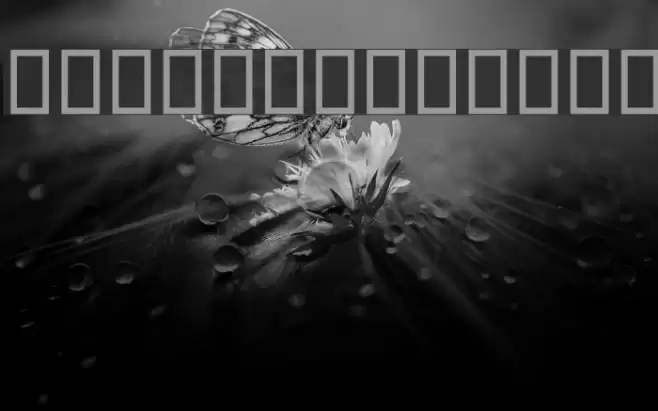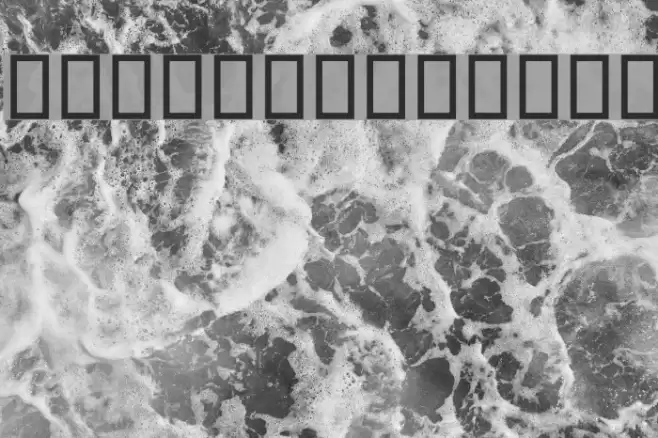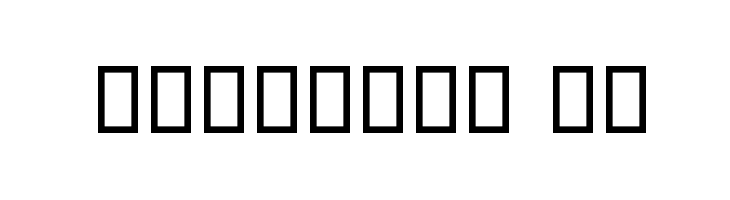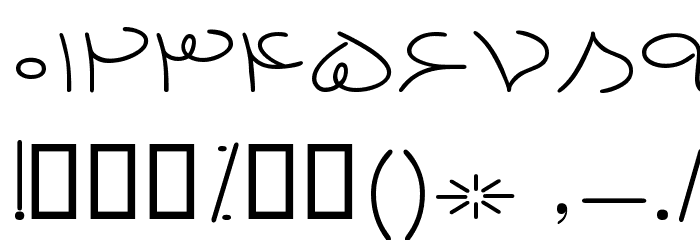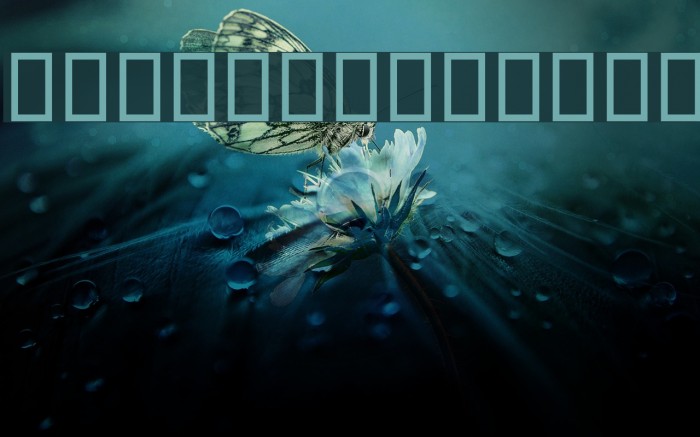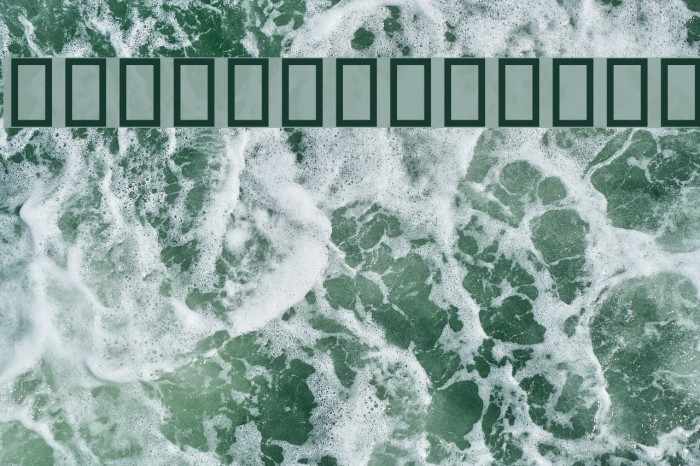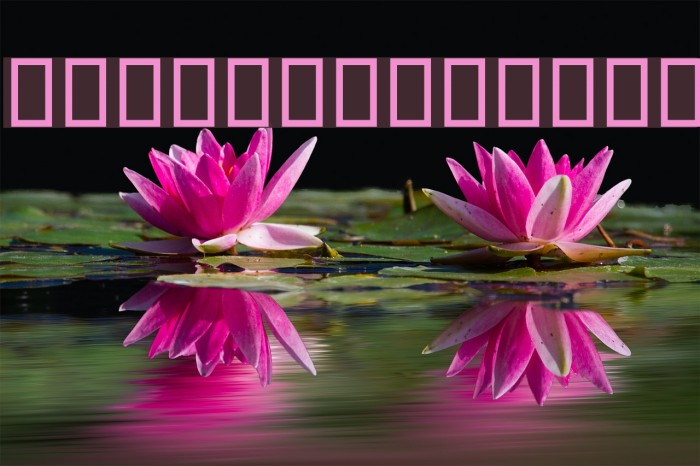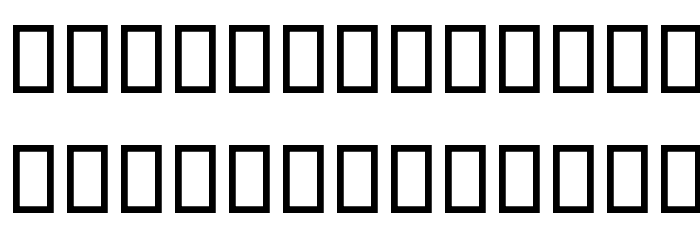
Destkhat VI Font
Destkhat VI Description
This font showcases a unique and artistic script style, characterized by its fluid and flowing letterforms. The characters exhibit a handwritten quality, with smooth curves and elegant strokes that give it a personal and creative touch. The font maintains a consistent line weight throughout, providing a harmonious and balanced appearance. Its distinctive style makes it suitable for projects that require a personal or artistic flair, such as invitations, greeting cards, or creative branding. The special characters are integrated seamlessly, enhancing the overall aesthetic without disrupting the flow of the text.
A fluid and artistic script font with a handwritten quality from Uncategorized fonts.
- Proposed Projects: Ideal for invitations, greeting cards, artistic branding, and creative projects.
- Overall Style: Artistic
- Use Case: Logos, Invitations, Creative projects